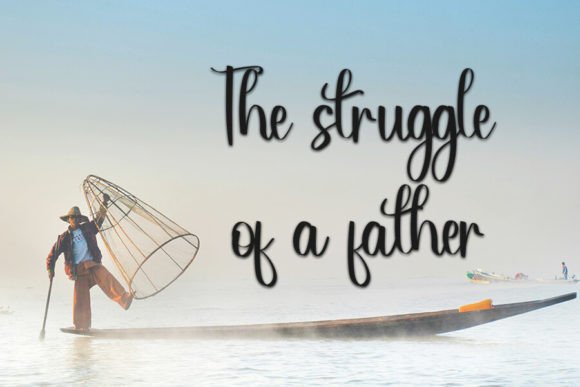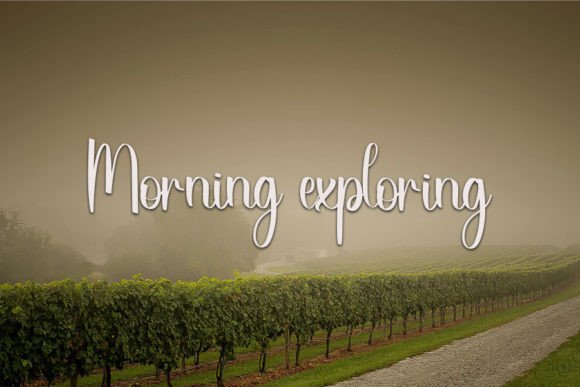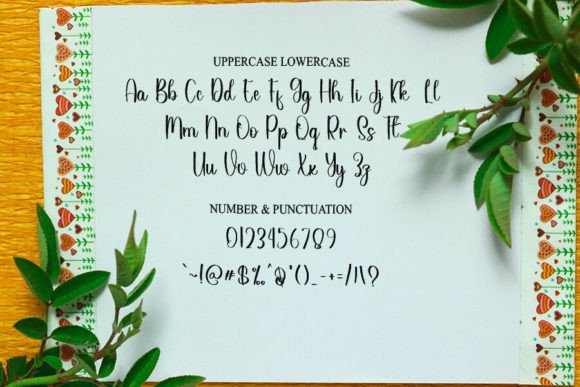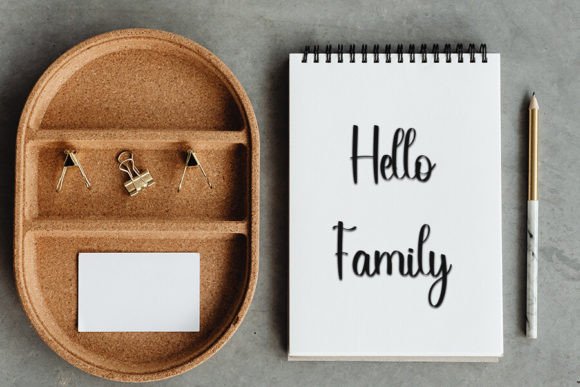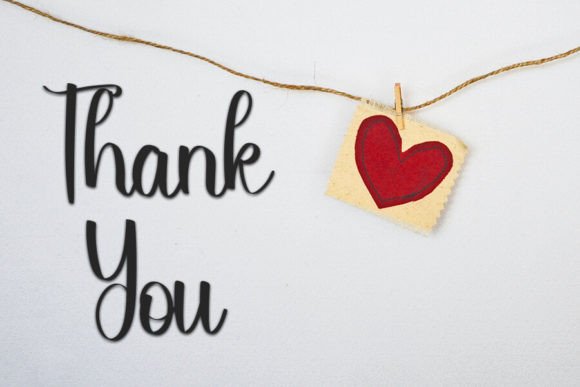
The Magic of Fisherman Font: A Festive Holiday Companion
It’s that time of the year again – the holiday season is just around the corner, and as designers, crafters, and creative hobbyists, we’re gearing up to create some amazing projects. I still remember the year I spent hours searching for the perfect font for a client’s holiday card project. The design brief was simple: create a warm, inviting, and festive feel that captured the essence of the season. I tried font after font, but none seemed to nail it. That was until I stumbled upon Fisherman Font. ✨
A Festive Favorite: An Honest Review
Fisherman Font is a game-changer for any holiday project. Here’s what I love about it:
- ✅ Festive and happy vibe that instantly sets the tone for the holiday season
- ✨ Decorative elements and unique flair that add a touch of charm to designs
- 🔍 PUA coded, making it easy to access all the amazing glyphs and ligatures
- 🎉 Perfect for greeting cards, gift labels, and holiday-themed projects
Of course, no font is perfect, and there are a few small quirks to be aware of:
- ⚠️ Some users may find the font a bit too ornate for certain projects
- 🤔 Limited use outside of holiday-themed projects (but that’s not necessarily a bad thing!)
The Story Behind Fisherman Font
Fisherman Font was designed with the holiday season in mind. The creator wanted to craft a font that captured the warmth and magic of the season, with a dash of playfulness and whimsy. Inspired by vintage holiday cards and decorations, Fisherman Font brings a touch of nostalgia to any project.
| Font Name | Fisherman Font |
| Author | K_IN Studio |
| What is Fisherman Font best used for? | Fisherman Font is perfect for holiday-themed projects, such as greeting cards, gift labels, and decorations. |
| Is Fisherman Font PUA coded? | Yes, Fisherman Font is PUA coded, making it easy to access all the amazing glyphs and ligatures. |